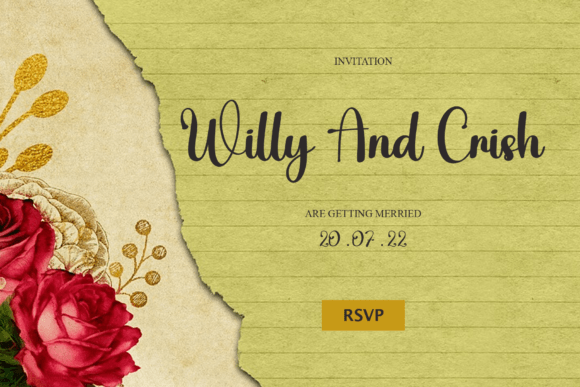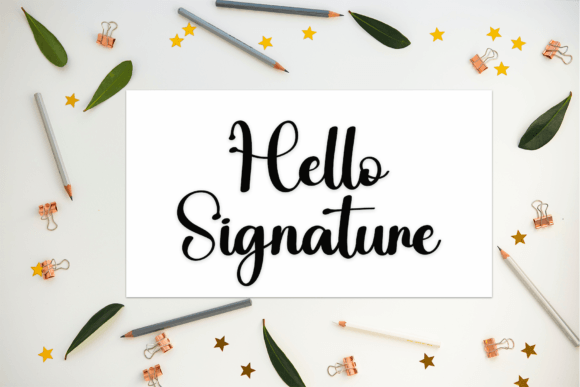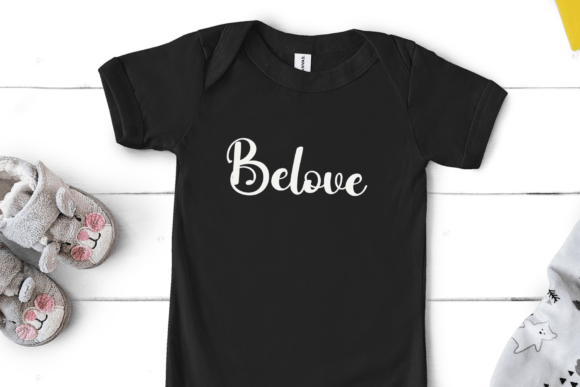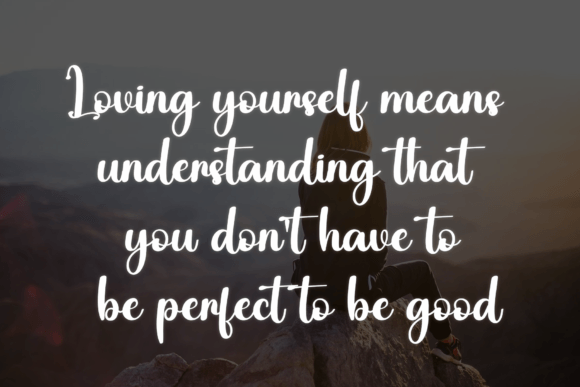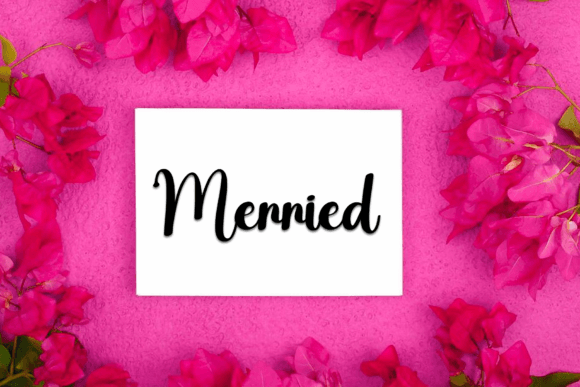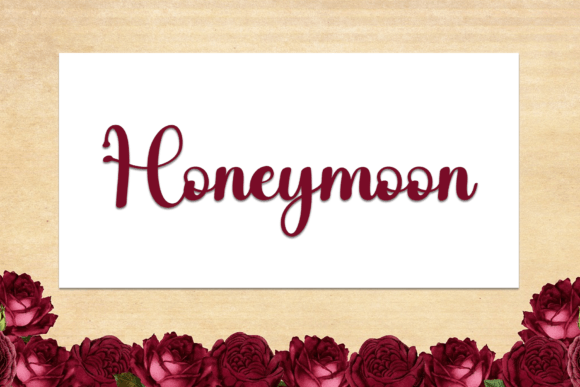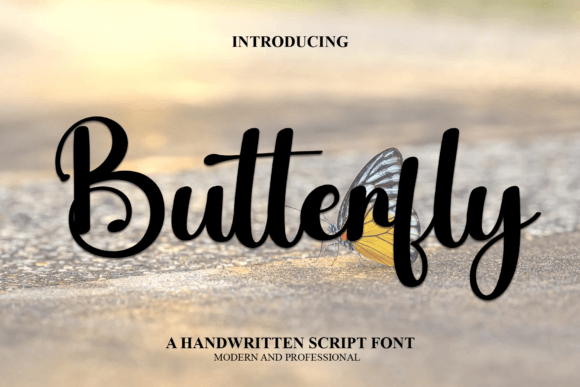
The Butterfly Effect: How a Unique Font Can Transform Your Designs
I’ll never forget the time I was working on a project for a client who wanted a custom invitation for their wedding. I had spent hours brainstorming ideas, but something was missing. That’s when I stumbled upon the Butterfly font. It was like a breath of fresh air – playful, elegant, and unique. In this article, I’ll share my experience with the Butterfly font, its features, and how to make the most of it in your designs.
A Personal Review of Butterfly Font
So, what makes the Butterfly font special? Here are a few things I love about it:
- ✨ Unique and playful: The Butterfly font has a distinctive, handwritten feel that’s perfect for creative projects.
- ✅ Highly legible: Despite its playful nature, the font is easy to read, even in smaller sizes.
- 💫 Versatile: The font comes with a range of OpenType features, glyphs, and stylistic alternates, making it suitable for a wide range of projects.
Of course, no font is perfect, and the Butterfly font has a few quirks:
- 🤔 Limited use in formal contexts: While the font is beautiful, it may not be the best choice for very formal or traditional projects.
- ⚠️ Some characters may require manual kerning: As with any font, you may need to adjust the kerning of certain characters to get the best results.
How to Use Butterfly Font in Your Designs
The Butterfly font was designed by a team of creatives who wanted to create a unique, handwritten font that would inspire designers and crafters alike. The font’s playful, elegant feel is perfect for a wide range of projects, from wedding invitations to social media graphics.
| What is the Butterfly font best suited for? | The Butterfly font is perfect for creative projects, such as wedding invitations, social media graphics, and craft projects. |
| Is the Butterfly font easy to read? | Yes, the Butterfly font is highly legible, even in smaller sizes. |
| Does the Butterfly font come with OpenType features? | Yes, the Butterfly font comes with a range of OpenType features, glyphs, and stylistic alternates. |